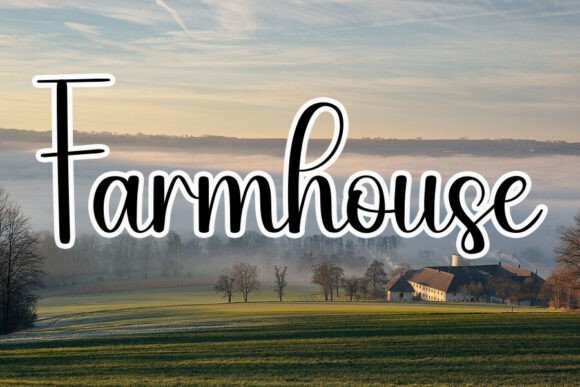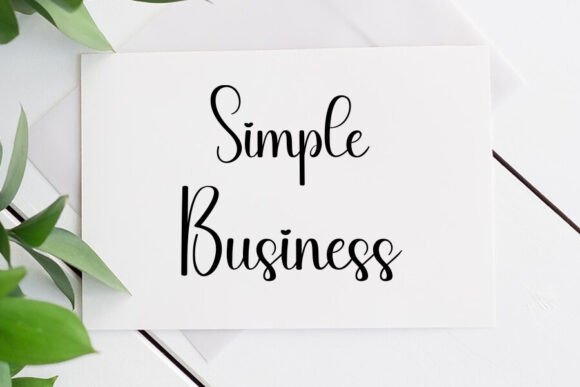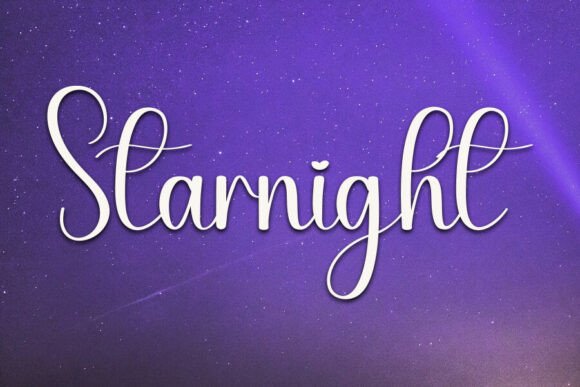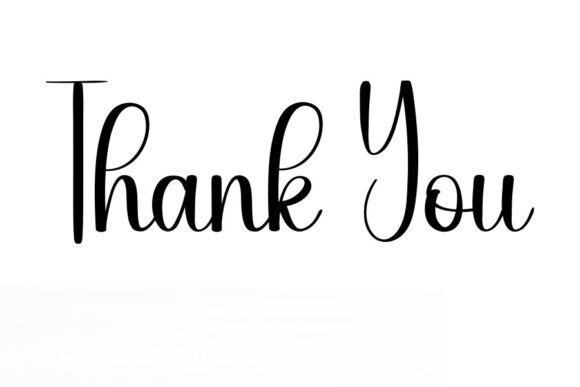
Introducing Donkey Font: A Simple yet Versatile Handwritten Font
Are you looking for a font that can add a personal touch to your designs? Look no further than Donkey Font, a simple handwritten font that is perfect for a wide range of applications. From greeting cards to headlines, Donkey Font is guaranteed to bring a simple and natural feel to your next project.
What is Donkey Font?
Donkey Font is a carefully crafted handwritten font that exudes a sense of simplicity and elegance. Its unique charm lies in its ability to convey a sense of warmth and approachability, making it perfect for designers and crafters who want to add a personal touch to their work.
Characteristics of Donkey Font
So, what makes Donkey Font so special? Here are some of its key characteristics:
- Simple and Handwritten: Donkey Font is a handwritten font that is simple, yet elegant. Its smooth strokes and flowing lines make it perfect for a wide range of applications.
- Versatile: Donkey Font is an incredibly versatile font that can be used for everything from greeting cards to headlines, and even body text.
- Natural Feel: Donkey Font has a natural feel that is hard to find in digital fonts. Its unique charm is sure to add a personal touch to your designs.
Applications of Donkey Font
Donkey Font is perfect for a wide range of applications, including:
- Greeting Cards: Add a personal touch to your greeting cards with Donkey Font. Its simple and natural feel makes it perfect for birthdays, weddings, and other special occasions.
- Headlines: Use Donkey Font to add a touch of elegance to your headlines. Its unique charm is sure to grab the attention of your audience.
- Body Text: Donkey Font is also perfect for body text. Its smooth strokes and flowing lines make it easy to read and understand.
- Branding: Use Donkey Font to create a unique brand identity. Its simple and natural feel makes it perfect for logos, packaging, and other branding materials.
Why Choose Donkey Font?
So, why choose Donkey Font over other fonts? Here are some reasons:
- Unique Charm: Donkey Font has a unique charm that is hard to find in digital fonts. Its simple and natural feel makes it perfect for designers and crafters who want to add a personal touch to their work.
- Easy to Read: Donkey Font is easy to read and understand, making it perfect for body text and other applications where readability is important.
- Versatile: Donkey Font is an incredibly versatile font that can be used for a wide range of applications.
Tips for Using Donkey Font
Here are some tips for using Donkey Font:
- Use it for Headlines and Titles: Donkey Font is perfect for headlines and titles. Use it to add a touch of elegance to your designs.
- Pair it with Other Fonts: Donkey Font can be paired with other fonts to create a unique and interesting design.
- Experiment with Different Sizes: Donkey Font can be used at different sizes to create a unique and interesting design.
In conclusion, Donkey Font is a simple yet versatile handwritten font that is perfect for a wide range of applications. Its unique charm and natural feel make it perfect for designers and crafters who want to add a personal touch to their work. Whether you’re creating greeting cards, headlines, or body text, Donkey Font is sure to bring a simple and natural feel to your next project.